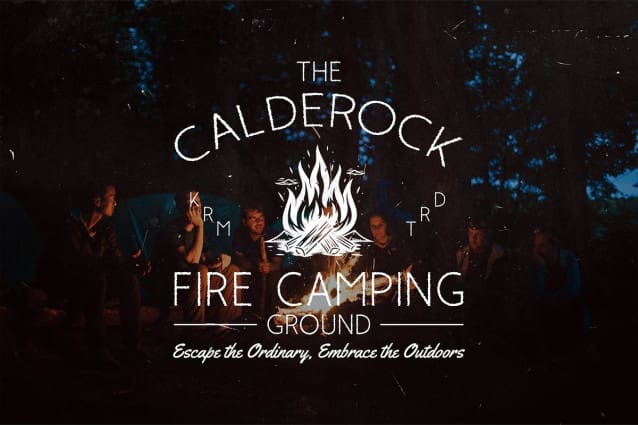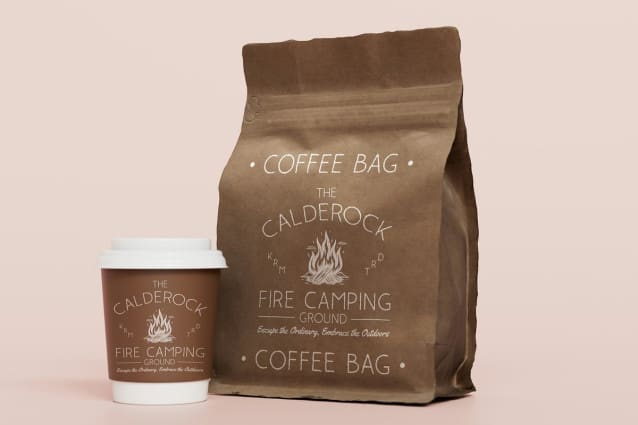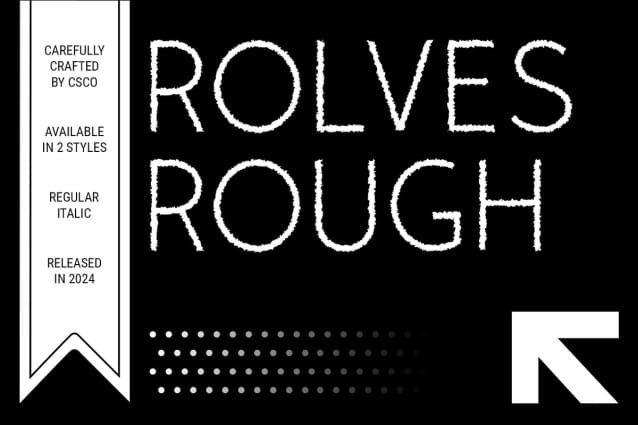
Rolves Rough Font is a modern sans serif font that masterfully combines elegance with a rough effect, offering a sophisticated yet distinctive appearance. The traditional sans serif design is enhanced by a textured finish, adding depth and character to each letterform.
Perfect for Branding and Editorial Design Ideal for branding and editorial projects, Rolves Rough provides a luxurious look with an edge. Its unique texture adds visual interest and sophistication, making it an excellent choice for high-impact logos, captivating headlines, and engaging editorial layouts.
Balancing Luxury with Uniqueness This font strikes a perfect balance between classic luxury and modern uniqueness. Rolves Roughâs textured finish ensures that every project stands out, bringing both refinement and a touch of individuality to your designs.
Versatile for Distinctive and Elegant Applications From upscale branding to refined editorial work, Rolves Rough offers versatility and style. Its combination of elegance and rough texture makes it a standout choice for any design requiring a sophisticated yet memorable touch